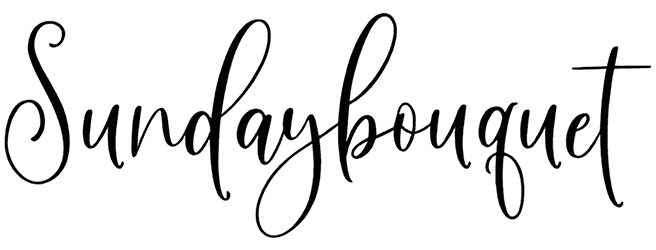
Sundaybouquet Font
It’s time to meet Sundaybouquet, an adorable calligraphy font with a tall, elegant, and bouncy form crafted tastefully. Looking modern, natural, and stylish, that is perfect for making creative imagination real while conveying a romantic, exciting feel.
It doesn’t support numbers 0, 1, some punctuation, and ligatures. Photography watermarks, wedding invitations, greeting cards, book covers, and branding materials are instances that this font will go well with.